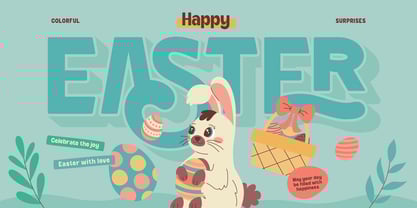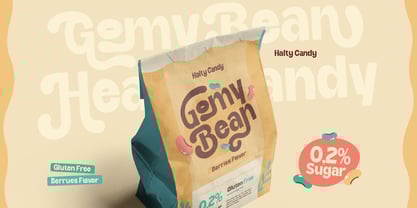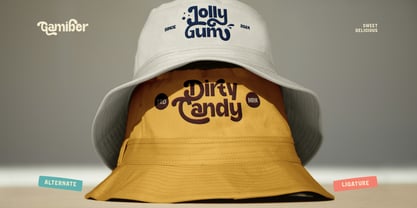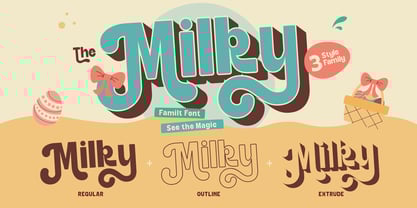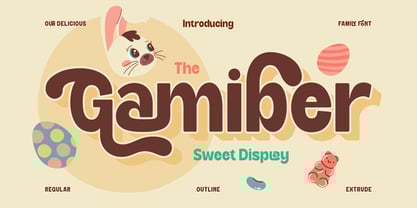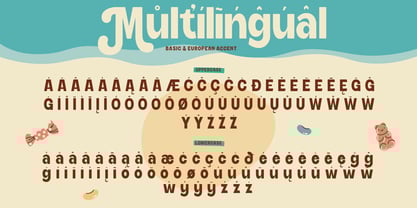
Gamiber
by Burntilldead
The Gamiber Font Family was designed by Eric Kurniawan and published by Burntilldead. Gamiber contains 3 styles and family package options.
Say hi to Gamiber, our sweet and playful display font! This font brings a fun retro vibe with bold shapes and smooth, curvy lines. It’s perfect for cheerful and eye-catching design projects. Gamiber comes in three styles: Regular, Outline, and Extrude, making it super easy to mix and match for your designs. Whether you’re working on branding, packaging, posters, or social media, this font is a great choice—especially for food-related themes, nostalgic designs, and anything kid-friendly!
Features:
• A - Z set (Uppercase & Lowercase)
• Number
• Punctuation
• Alternates
• Ligatures
• Multilingual